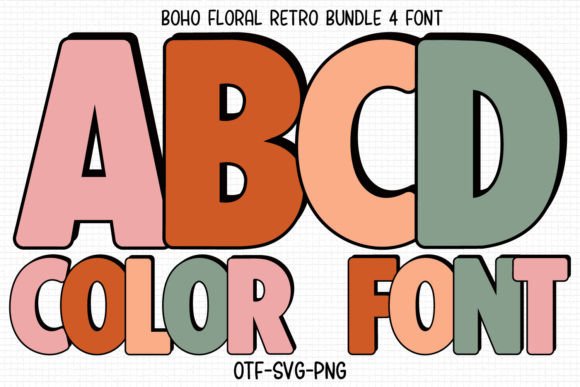
Boho Floral Retro: A Font for Bold, Authentic Design
There’s a particular kind of design work that demands more than just legible text. It needs presence. It needs a voice. When you’re crafting a brand for an artisan coffee roaster, designing a poster for a local music festival, or laying out a lifestyle blog that celebrates vintage finds, the typography sets the entire mood. This is where a typeface like Boho Floral Retro earns its place in your toolkit. It’s not just a collection of letters; it’s a chunky, serif font with a distinct retro personality, built to make a statement without saying a word.
More Than Just Letters: The Visual Soul of Boho Floral Retro
At its core, Boho Floral Retro is a display font, meaning it’s engineered for impact at larger sizes. Its bold, chunky letterforms have a substantial, grounded feel, reminiscent of mid-century signage and vintage posters. But what sets it apart is its subtle integration of floral motifs and a retro flair. The serifs aren’t just functional; they’re styled with a gentle, organic touch that hints at the bohemian aesthetic. This isn’t a stark, corporate serif. It’s a creative font with warmth and character, designed to evoke nostalgia, creativity, and a handcrafted sensibility.
The personality of Boho Floral Retro is confident and friendly. It feels approachable yet stylish, making it a versatile premium font for projects that aim to connect with an audience on an emotional level. Its visual weight commands attention in headlines, logos, and feature titles, instantly establishing a visual hierarchy that guides the viewer’s eye.
Where This Typeface Truly Shines: Practical Applications
Understanding a font’s strengths helps you deploy it effectively. Boho Floral Retro excels in scenarios where you want to inject personality and stand out from a sea of minimalism.
Making It Work: Guidance for Using Boho Floral Retro
Integrating a strong display font into your projects requires a thoughtful approach to maintain professionalism and readability.
First, consider the project fit. Is the overall mood of your project aligned with a retro, boho, or artisanal feel? While versatile, Boho Floral Retro has a strong personality. Using it for a corporate financial report would create a disconnect. For a craft brewery’s website, it’s perfect.
Next, master the font pairing. This is crucial. A bold, characterful font like this needs a calm partner. A classic, neutral sans serif font (like Helvetica, Arial, or a geometric sans) for body copy is almost always a winning combination. For a more layered look, you could pair it with a simple script font or handwritten font for accent text, but use this sparingly to avoid visual clutter.
Always test for readability. As a display font, it’s not intended for long paragraphs of text. Use it for headlines, subheadings, and short bursts of impactful text. Ensure the size you choose maintains clarity, especially if the design will be printed at a small scale or viewed on low-resolution screens.
Finally, understand the technical and licensing side. Note that Boho Floral Retro is an OpenType-SVG color font. This format allows for stunning multi-color and textured effects directly in the font file, but compatibility is key. It works in modern versions of Adobe Photoshop, Illustrator, and other supporting software. It is not compatible with Cricut machines. Always check the included license for your intended use—whether personal or commercial—to ensure you’re covered for your specific project, be it a one-off client gig or a product you plan to sell.
Choosing the right typeface is a strategic design decision. Boho Floral Retro offers a powerful way to communicate a specific aesthetic with confidence. By applying it thoughtfully to the right projects and pairing it wisely, you can elevate your designs from merely functional to genuinely memorable.